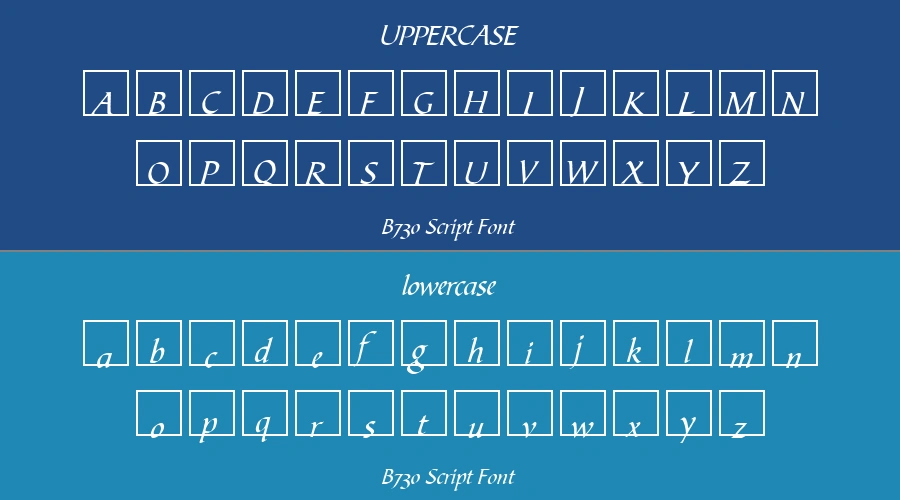
About B730 Script Font
B730 Script Font embodies typographic excellence through its masterful combination of bold expressions and design harmony. Created for brand identities, this typeface delivers exceptional clarity and industry recognition across all applications. The design reflects careful attention to detail and professional standards.
Advanced capabilities include distinctive flared stems and versatile mid-word alternates, giving designers creative control. When used in identification tags, B730 Script Font exhibits remarkable small cap rendering. The harmonious balance between proportion and historical reference sets this typeface apart.